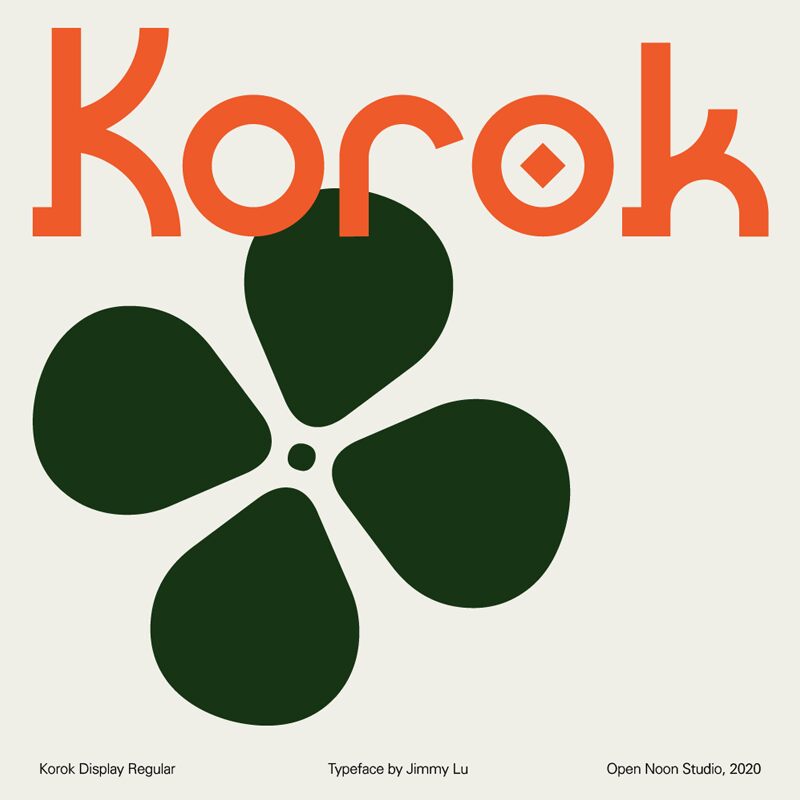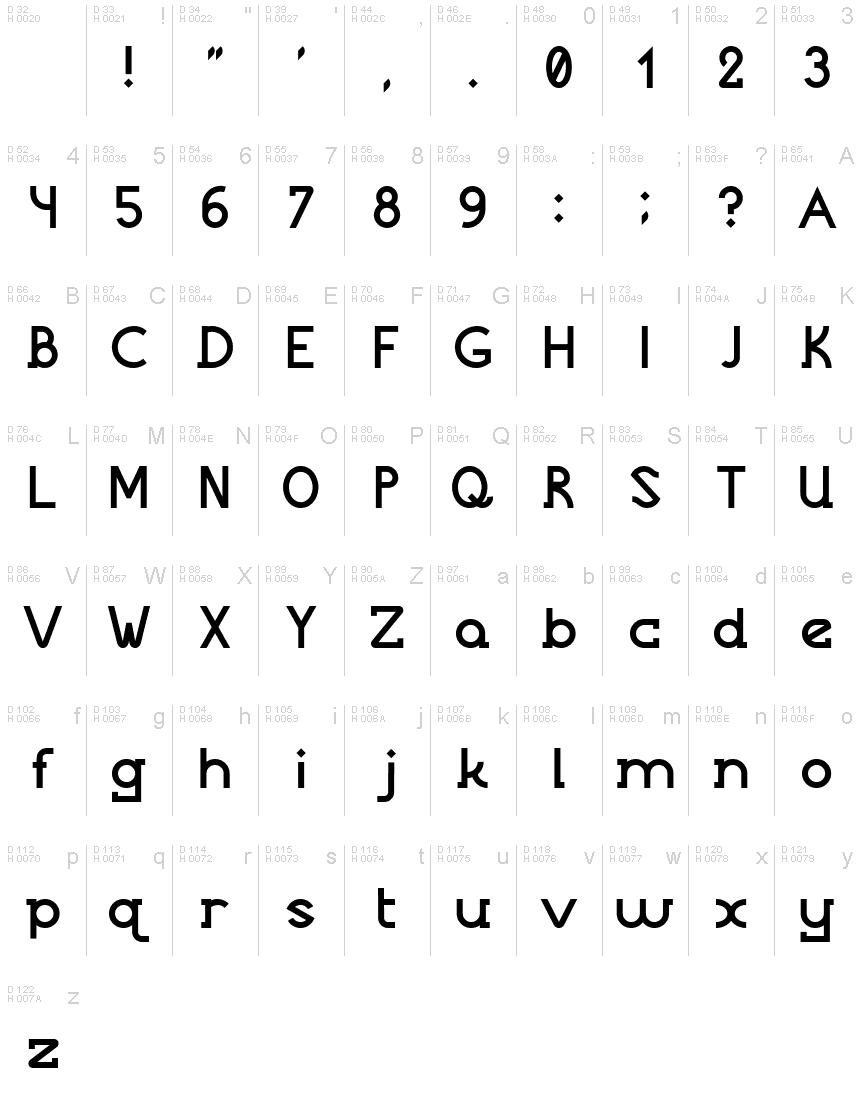
Korok
Korok is an experimental geometric typeface designed with versatility in mind. ⁠⁠This display font is ideal for posters and titles wanting the perfect tension between modern and vintage vibes.